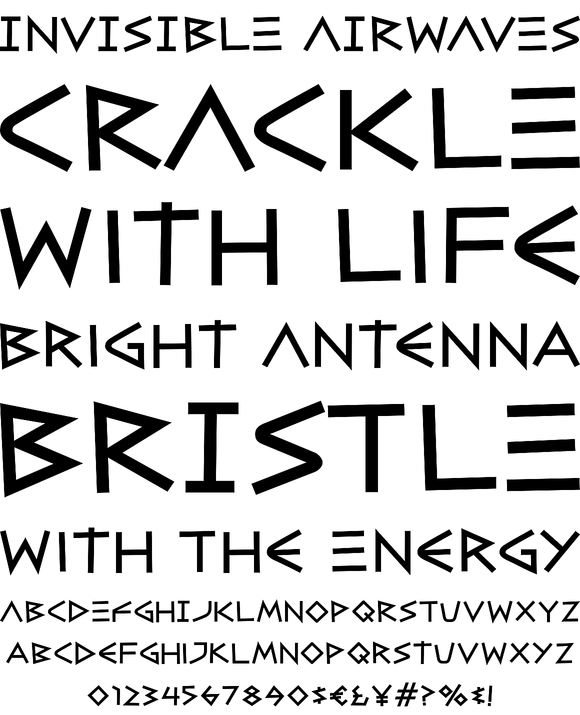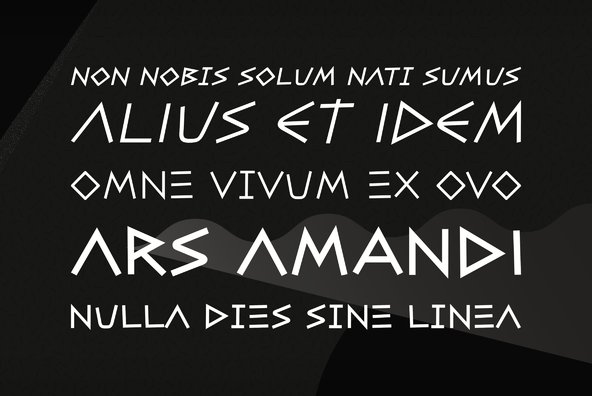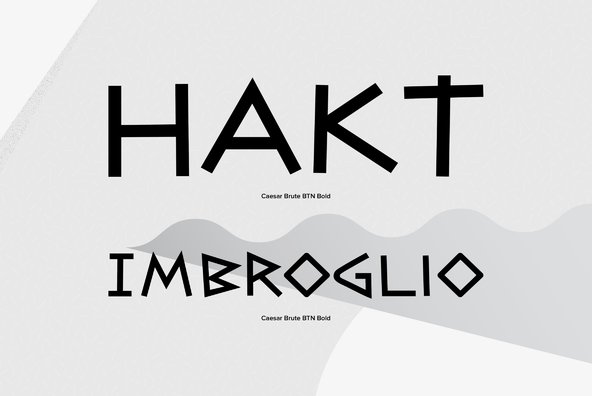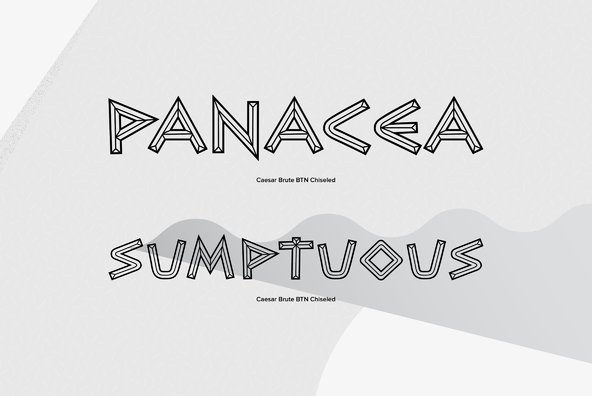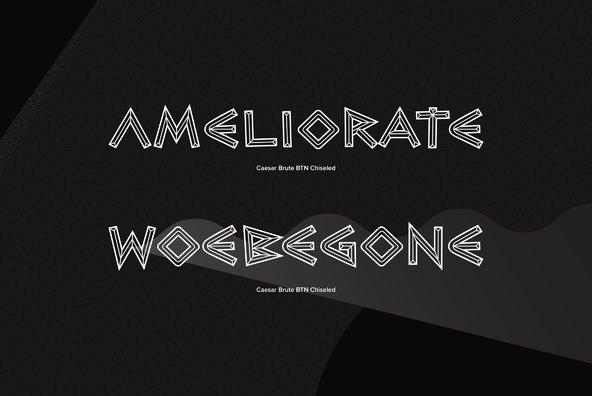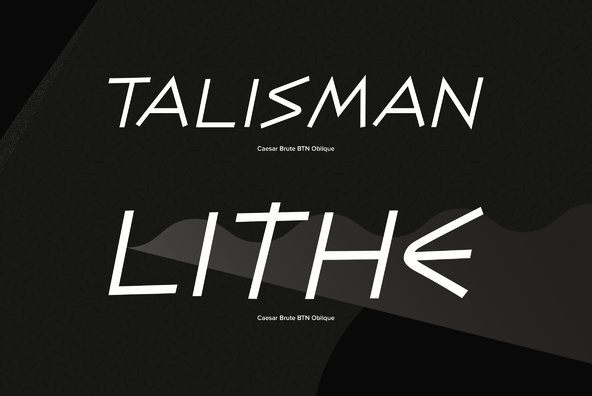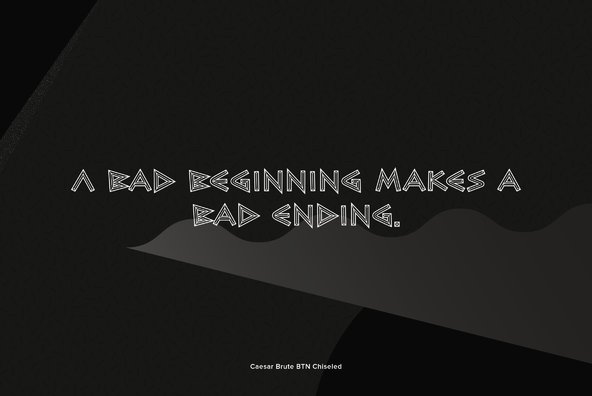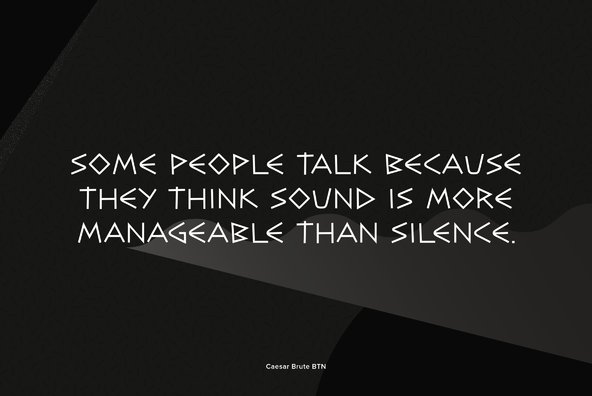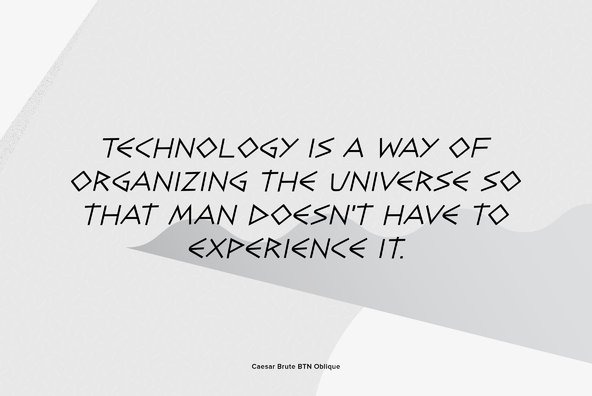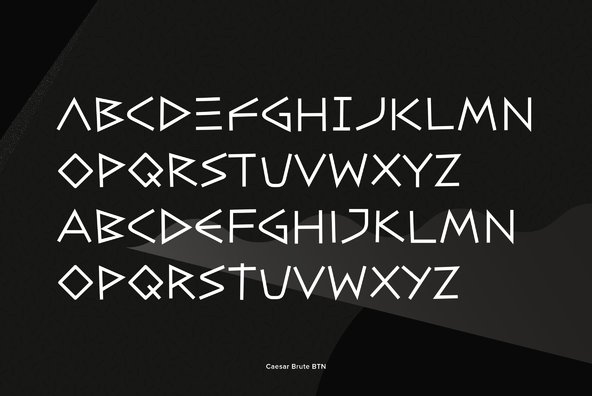
Caesar Brute
Foundry: Breaking The Norm
Caesar Brute is a roman empire style typeface, complete with standard weight variants as well as a detailed Chiseled style for impactful headlines and logos.